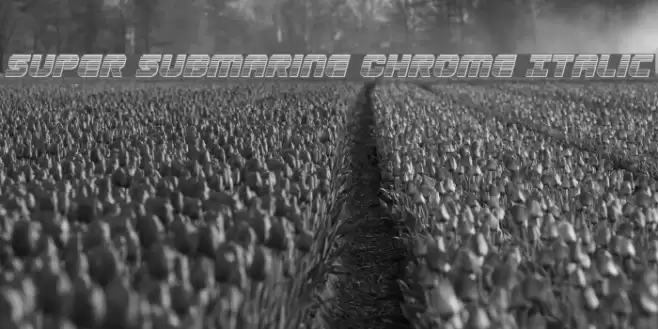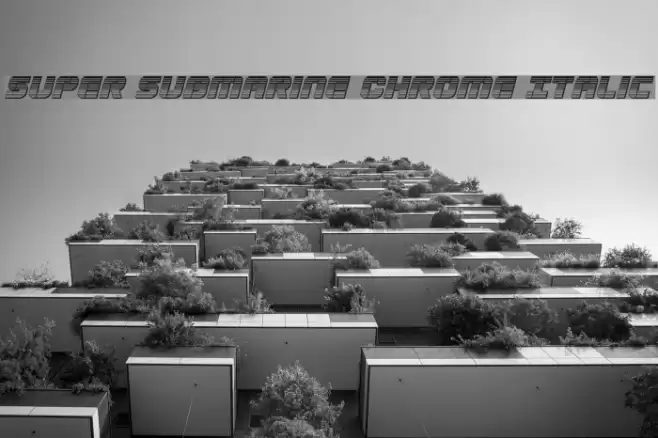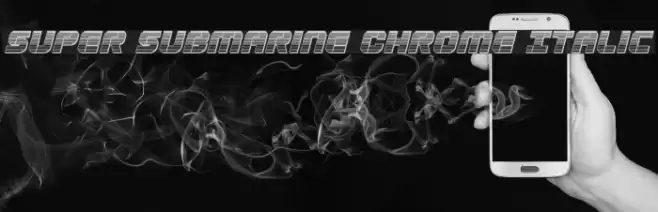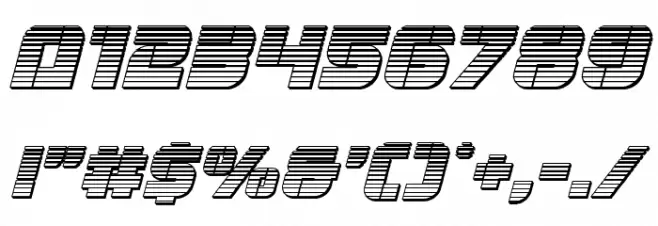
Super Submarine Chrome Italic Font
Super Submarine Chrome Italic Description
This font features a bold, futuristic design with a distinct chrome-like appearance. The characters are constructed with horizontal lines that create a sense of movement and depth, giving it a three-dimensional effect. The italic slant adds dynamism, making it suitable for projects that require a modern and edgy look. The uppercase and lowercase letters maintain a consistent style, while the numerals and special characters complement the overall aesthetic. This font is ideal for creating eye-catching headlines, logos, and posters that demand attention.
A bold, futuristic font with a chrome-like, three-dimensional effect and italic slant from Uncategorized fonts.
- Proposed Projects: Ideal for futuristic branding, sci-fi movie posters, tech company logos, and modern advertising campaigns.